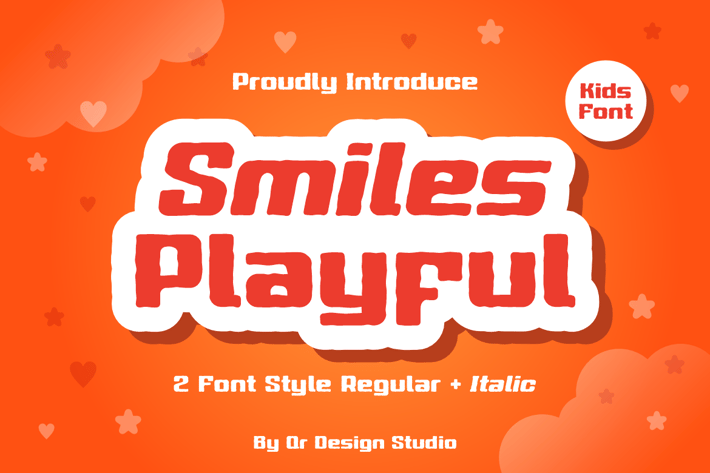
Smiles Playful Font
Smiles Playful Font is a bold and authentic display font.
The font is suitable for any branding project like logo, food, kids, poster, sport, and many more.